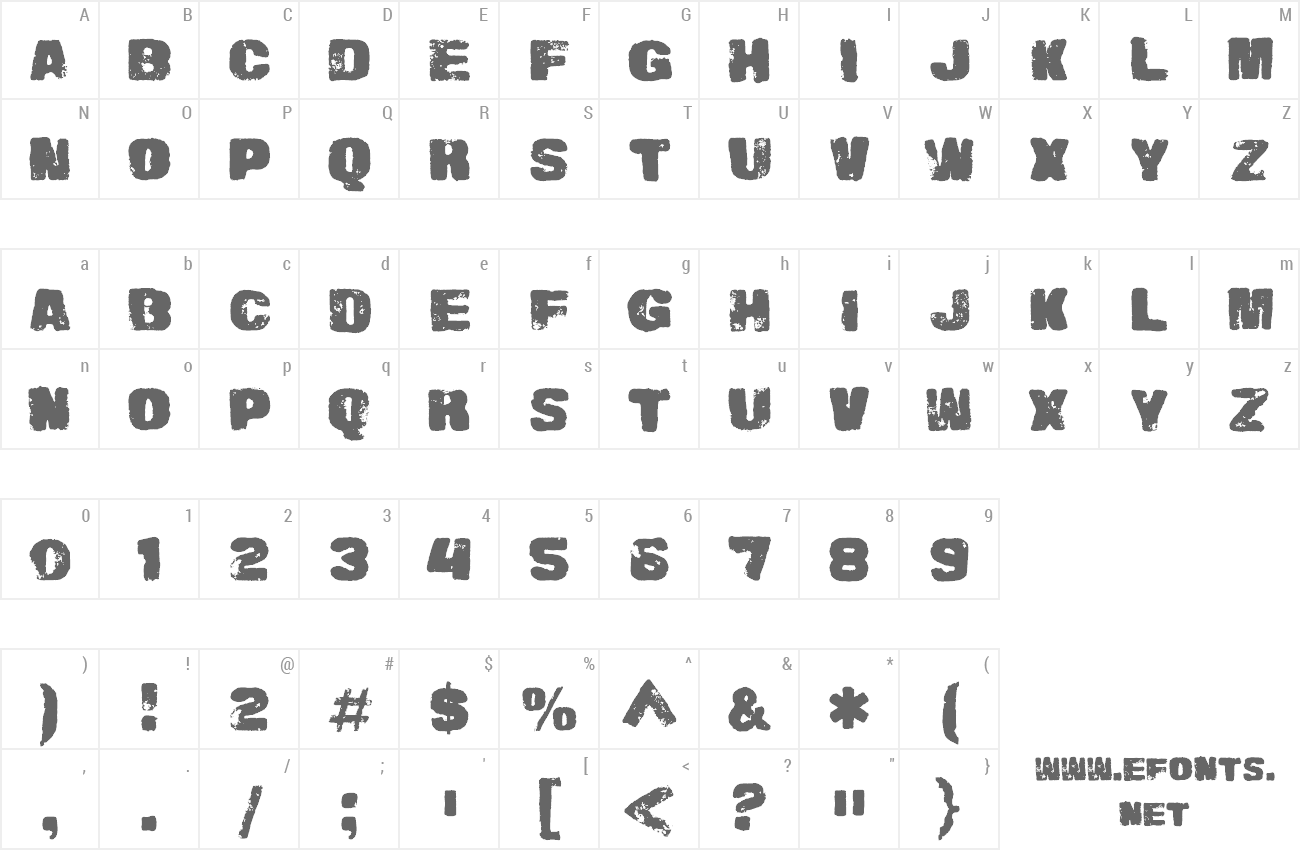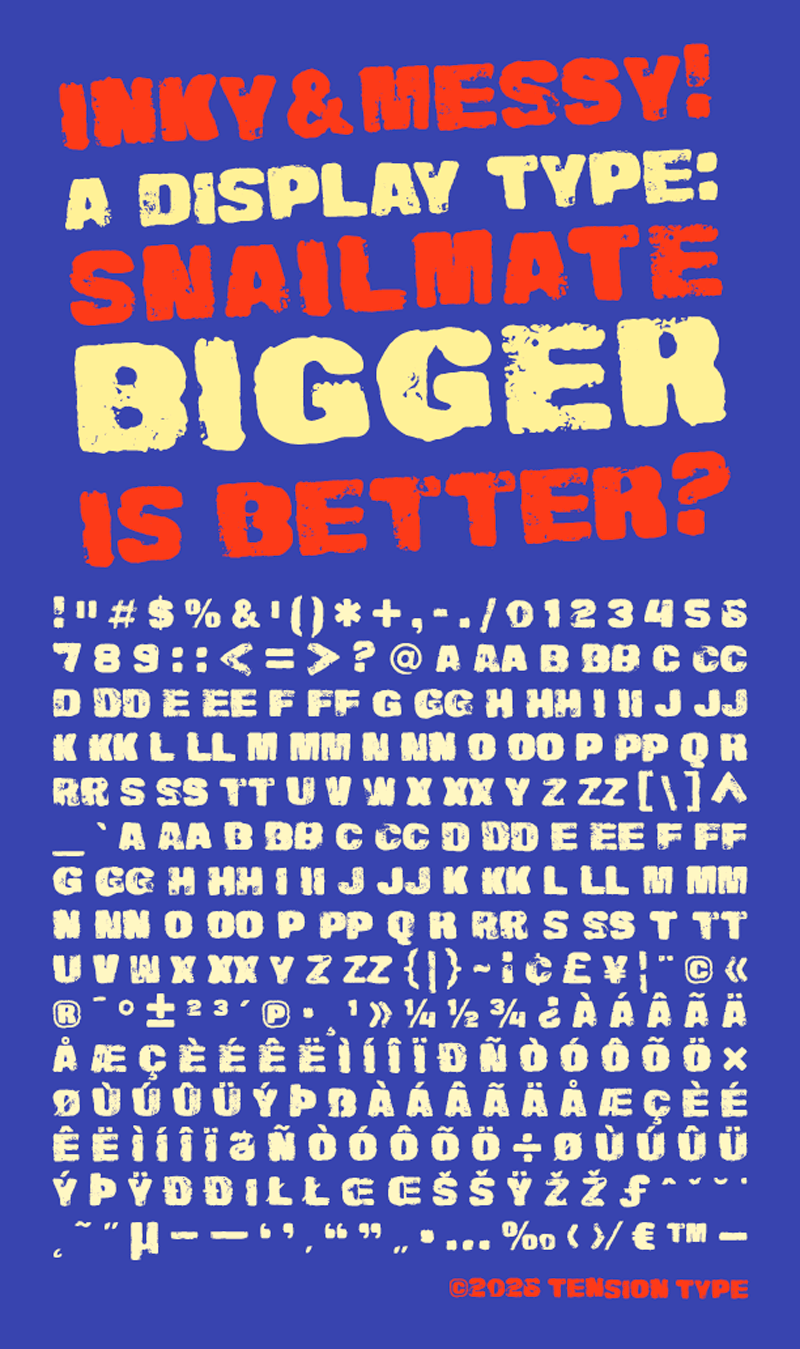
Preview and download Snailmate Font. Created by Tension Type in Fancy Eroded styles with Free for personal use license.
| Font name: | Snailmate |
| Author: | Tension Type |
| Note by Tension Type | |
| Snailmate started with a foam set of letters I found in a thrift store. It was missing a couple of characters and had only uppercase and no punctuation. I used paint to make the letters and scanned them. I created the rest based on what I had. Hopefully it�s just what you needed. |